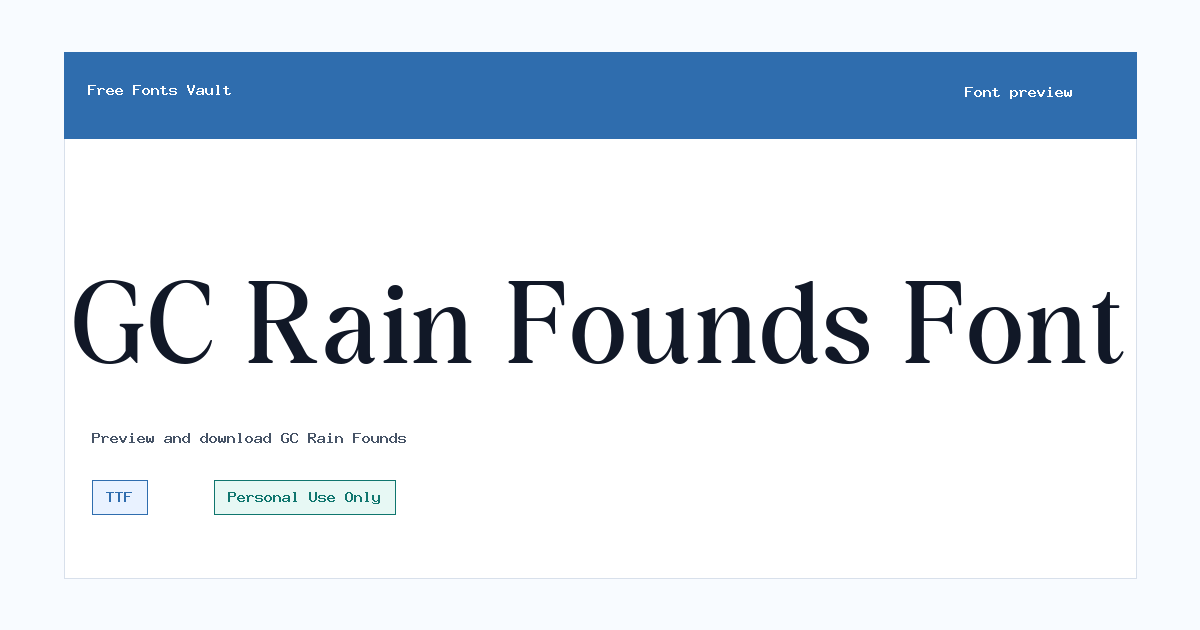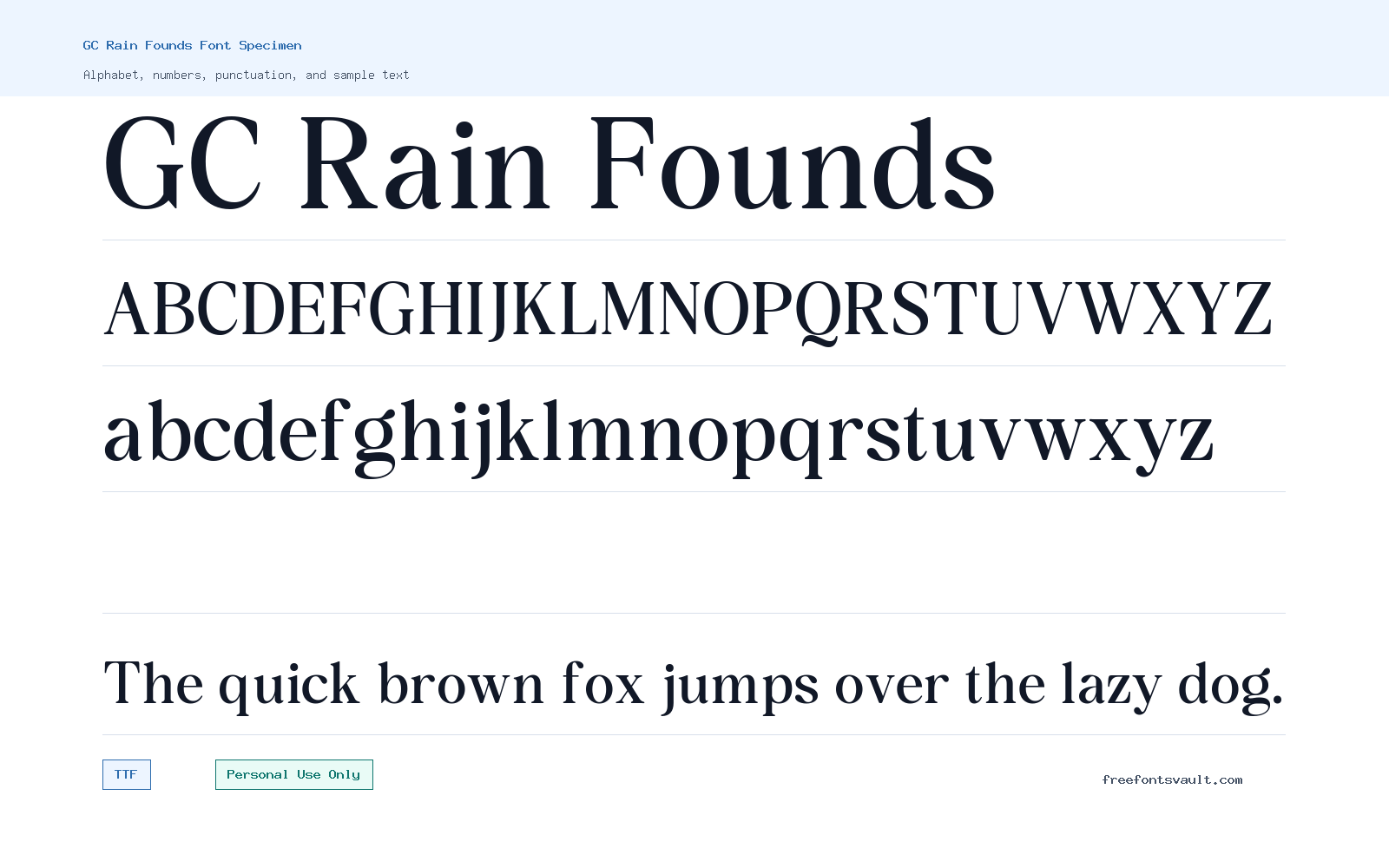
GC Rain Founds
- Designer Firo of Glyphonic
GC Rain Founds is a serif font family from Glyphonic with a regular TTF style for personal design projects. Use the live preview to test your own words, check spacing, and see whether its letter shapes fit your layout before downloading.
About GC Rain Founds Font
GC Rain Founds is best approached as a display-minded serif rather than a font to choose blindly for long reading. The known file is a regular 400-weight TTF, so visitors can test one core style without switching between multiple weights or italics. Because only one style is listed, it is especially worth previewing the exact words you plan to use. A name, quote, logo draft, poster heading, or short title will reveal more about the font than a generic alphabet sample. Pay attention to uppercase shapes, punctuation, numbers, and how repeated letters sit together, since those details often decide whether a serif font feels polished in a real design.
For design work, GC Rain Founds can be tested for personal logos, mood boards, social graphics, poster titles, invitations, packaging mockups, and web hero concepts. Keep the text short at first, then try a few longer phrases to check rhythm and readability. If you are building a logo or brand-style draft, test the exact brand name in uppercase, lowercase, and title case before committing. For posters and web mockups, give the font enough space and avoid squeezing it into dense paragraphs until you have checked how it behaves at smaller sizes. Since only the regular weight is known, pair it with a simple sans serif for body copy, captions, navigation, or supporting information. That contrast lets the serif carry the personality while the second font keeps the layout easy to read.
A practical way to evaluate GC Rain Founds is to start with your main headline, then test a subtitle, a short call-to-action, and a number sample. Many designs fail not because the headline looks weak, but because numerals, commas, currency symbols, or small supporting text do not match the project. If you plan to use it in a web mockup, check the TTF in your design tool first and consider whether you would need a web-ready format later. For personal print drafts, export a proof at the final size and inspect the edges, spacing, and contrast. For digital graphics, preview the font on both light and dark backgrounds, especially if the design uses thin strokes, texture, or tight letter spacing.
- Serif classification, suitable to preview for headlines, logo drafts, posters, and short display text.
- Single-style family listing, which makes spacing, scale, and pairing choices especially important.
- Personal logo concepts and name-based design drafts
- Poster titles, quote graphics, and event mockups
- Mood boards, invitation drafts, and social media experiments
- Web hero mockups where the serif is used for short headline text
- Pairing tests with clean sans serif body text
GC Rain Founds is credited to Firo of Glyphonic, with Glyphonic listed as the foundry.
Is GC Rain Founds good for logos?
Can I use GC Rain Founds for posters?
What should I pair with GC Rain Founds?
Try a clean sans serif for body text, captions, and navigation. A simple companion font helps keep the layout readable while GC Rain Founds handles the display text.